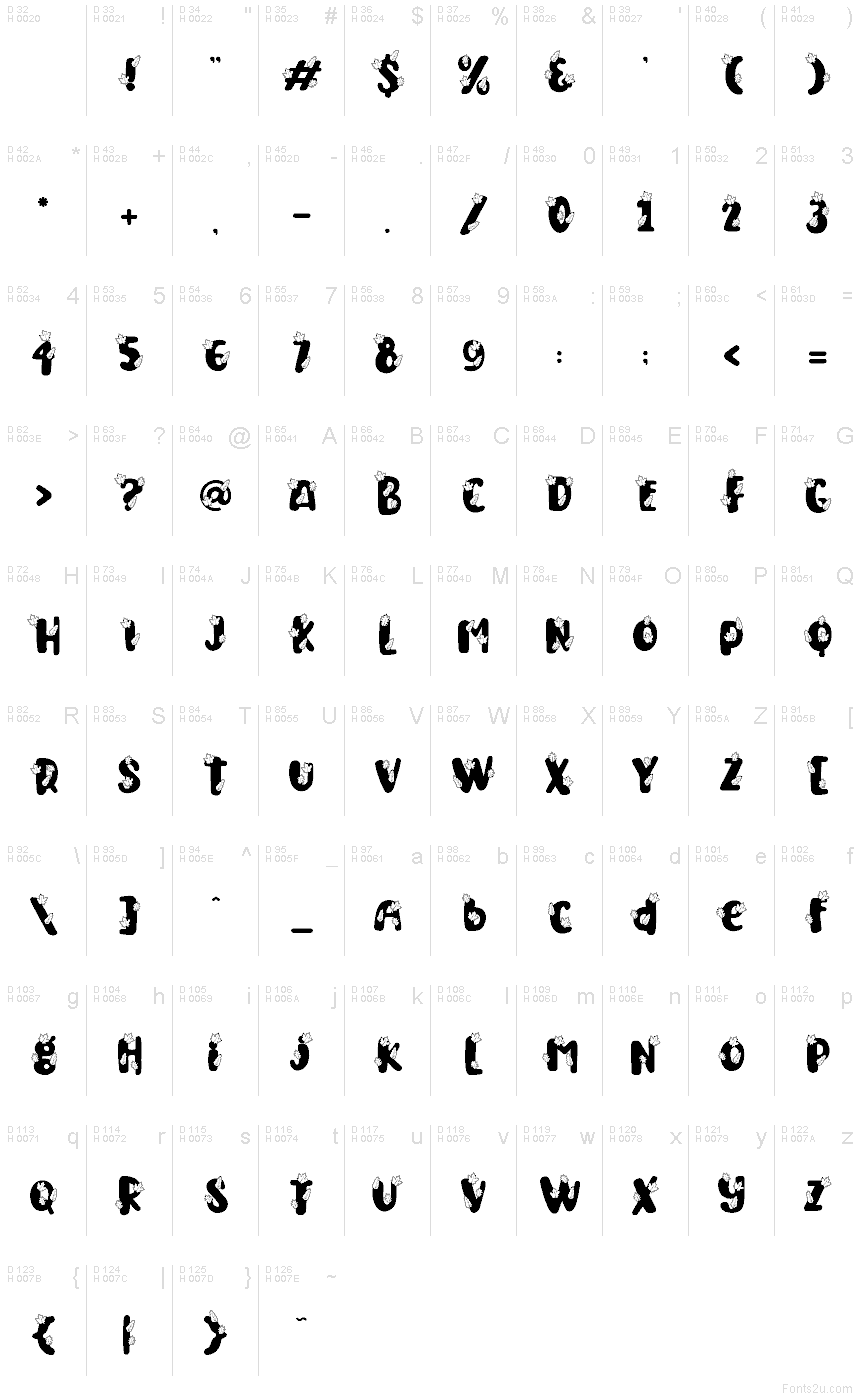
Thanksgiving Joy Leaf
Thanksgiving Joy Leaf font by PutraCetol Studio celebrates the beauty of autumn with a display style that’s bold and decorative. The letters have a nature-inspired design where flowers, leaves, and twines come alive in an artistic pattern. Their whimsical flow does not ignore elegance as the font presents smooth curves and natural lines within its characters which are legible and visible.